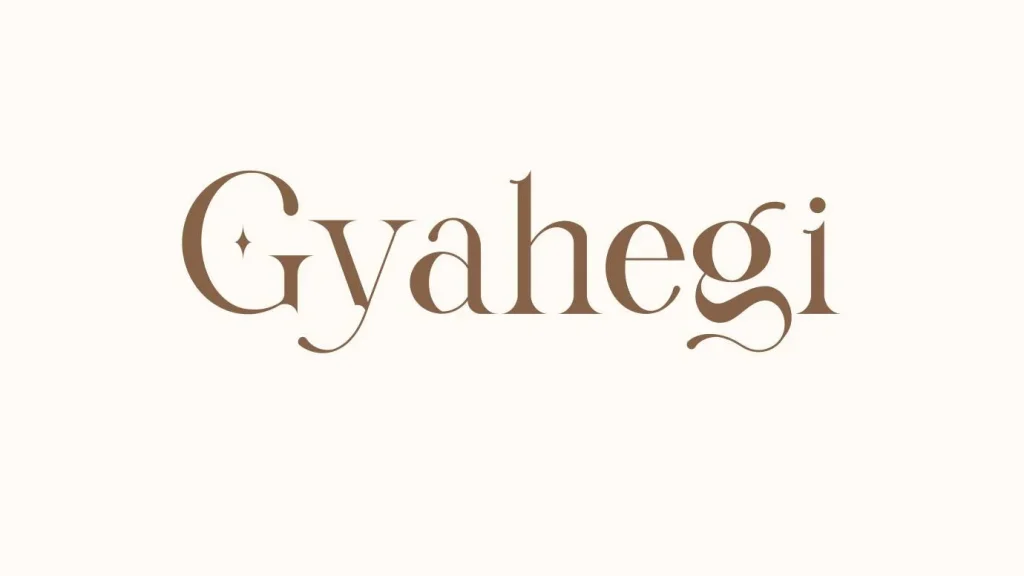
Gyahegi Font
About Gyahegi Font
Due to its sharp-looking characters, gyahegi font is ideal for lively style and athletic game design objectives. This font's versatility makes it appropriate for projects that need appealing text design.
Who designed Gyahegi Font?
Gyahegi Font is designed by Hishand Studio.
Yes, by using the Gyahegi Font you can make your website design more beautiful. This fantastic font may be used to create appealing postcard designs, brand logo designs, and booklet layouts.